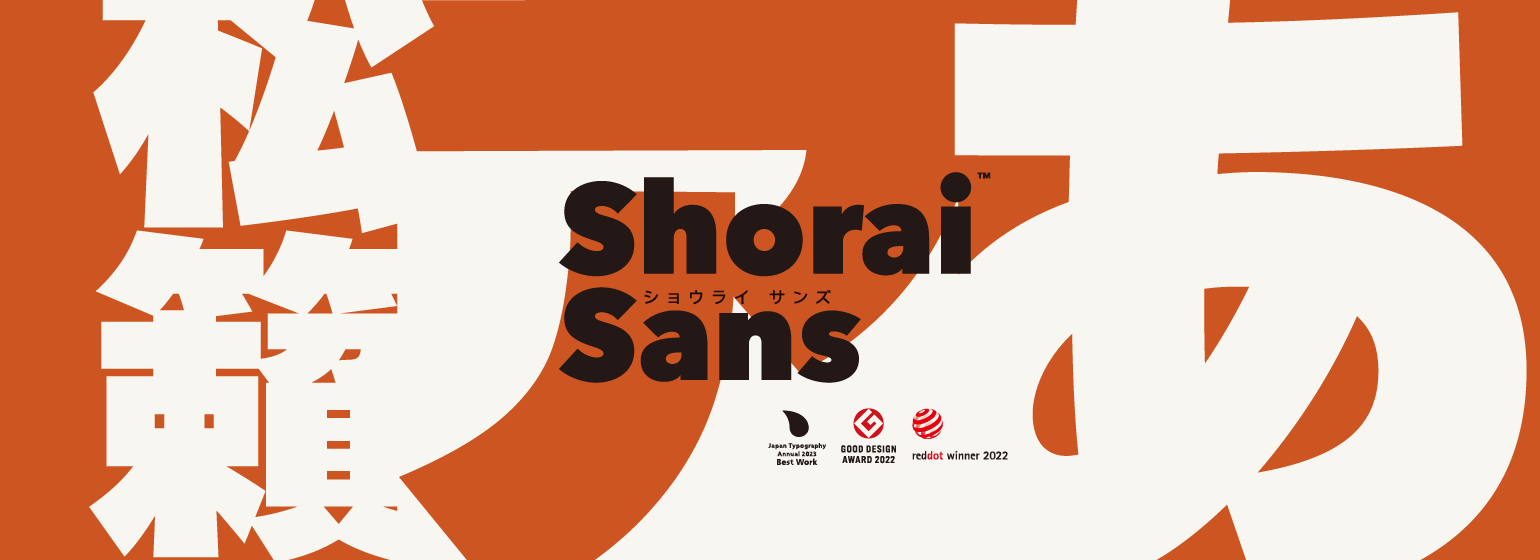
Shorai Sans Font excels in futuristic tech branding, innovation company identities, AI platform interfaces, robotics industry materials, space technology presentations, virtual reality applications, cutting-edge research publications, and next-generation product launches. This forward-thinking sans-serif typeface brings visionary sophistication and technological advancement to any project requiring progressive, future-oriented typography.
What makes Shorai Sans Font exciting is its perfect embodiment of future-forward thinking and technological innovation that captures the essence of tomorrow's possibilities today. The font features streamlined letterforms with subtle geometric refinements that suggest advanced engineering and scientific precision while maintaining exceptional human readability. Its progressive character and optimized digital performance create an immediate sense of innovation and forward momentum, making it ideal for organizations pioneering new technologies and shaping future industries. The typeface's visionary appeal ensures instant recognition of cutting-edge expertise and technological leadership.
The Shorai Sans Font family includes Thin, Light, Regular, Medium, Bold, and Black weights, each designed to support comprehensive future-tech branding and interface applications. The family offers extensive Unicode support, technical symbols, mathematical notation, and specialized characters that enhance its versatility for international technology and scientific research projects. These variants provide complete flexibility for creating progressive typographic systems that anticipate future communication needs.
Whether you're designing for technology innovators, research institutions, or future-focused brands, Shorai Sans Font Free Download delivers the visionary sophistication that defines tomorrow's typography today. Its combination of technological precision and human-centered design makes it perfect for communicating innovation, scientific advancement, and future possibilities with authentic next-generation appeal and pioneering technological credibility.